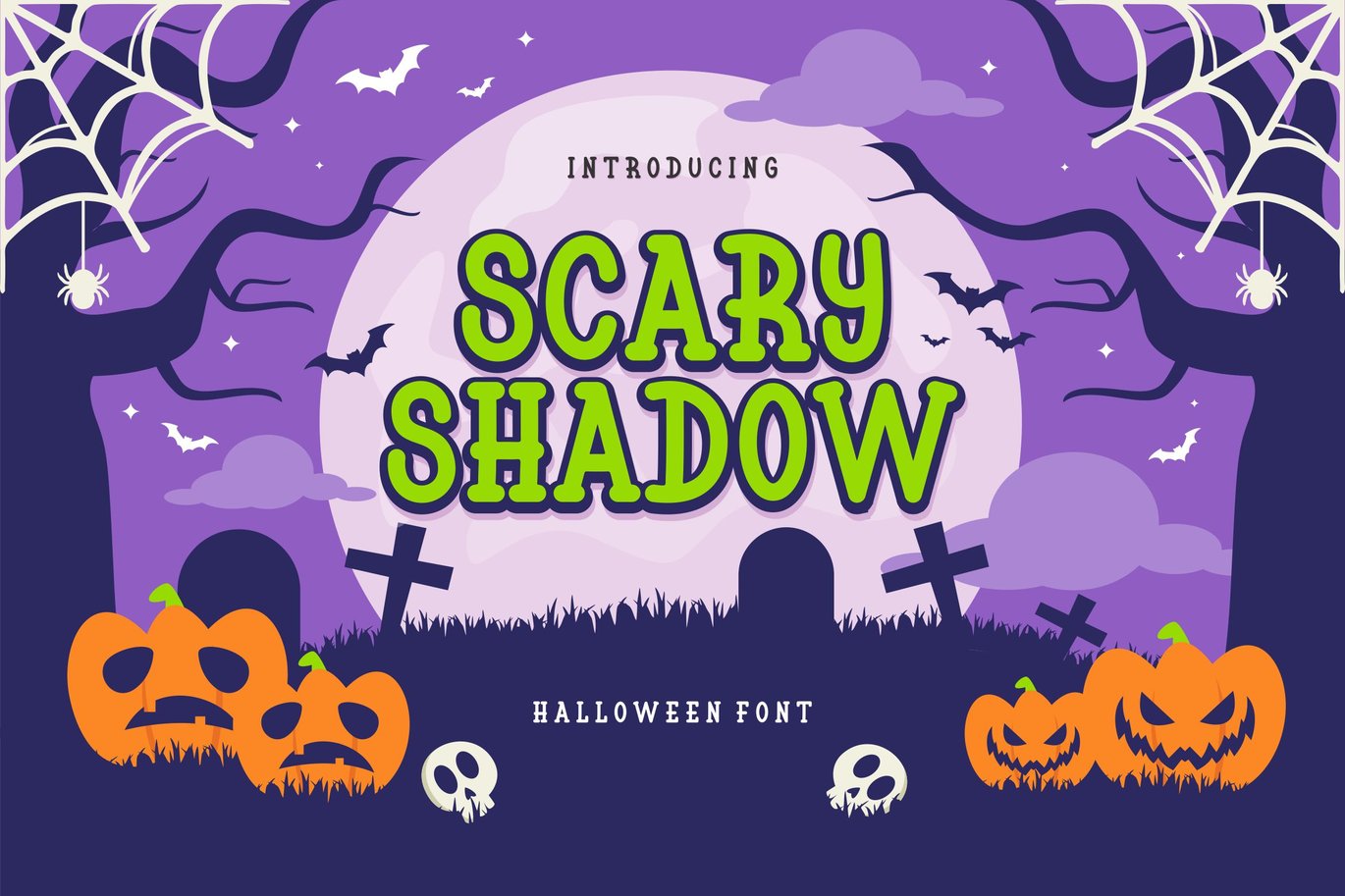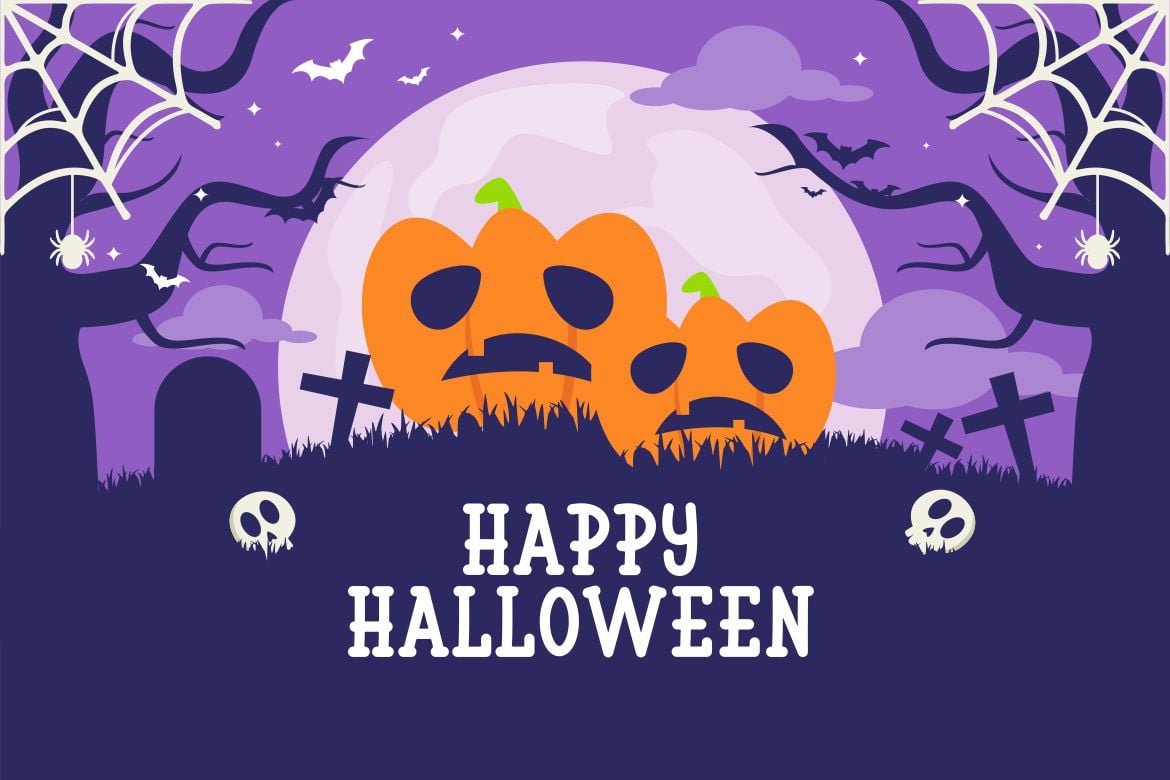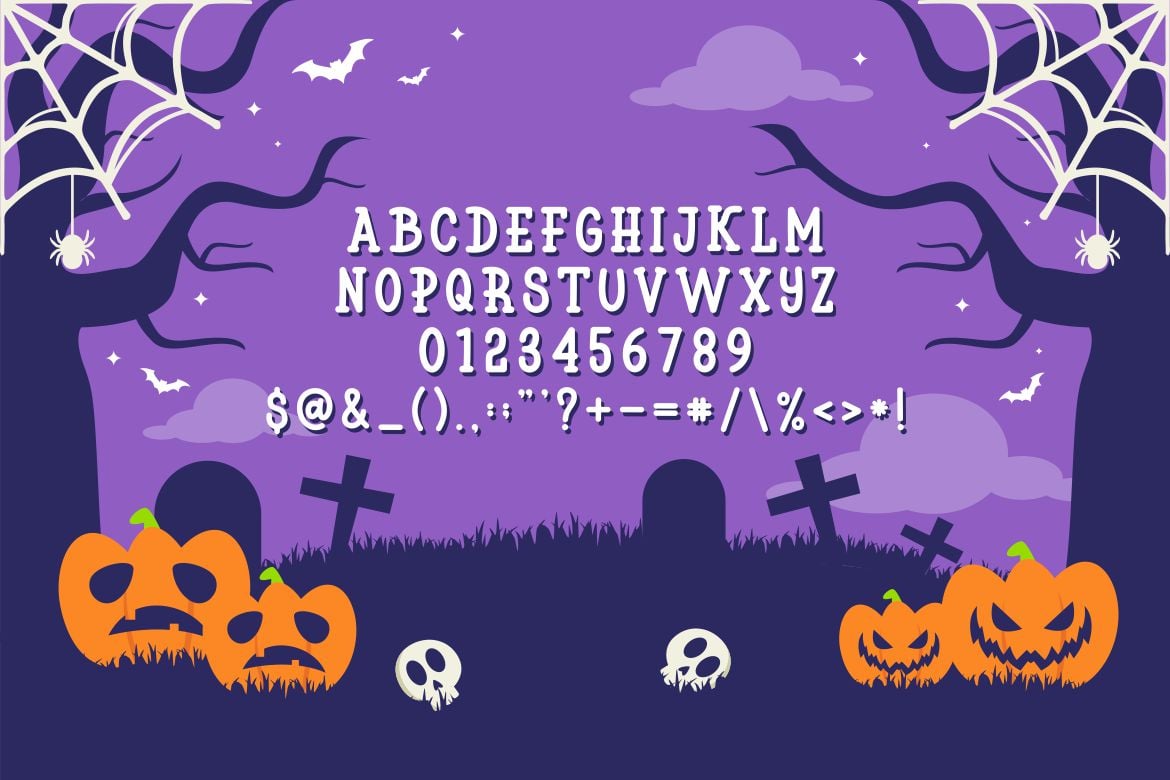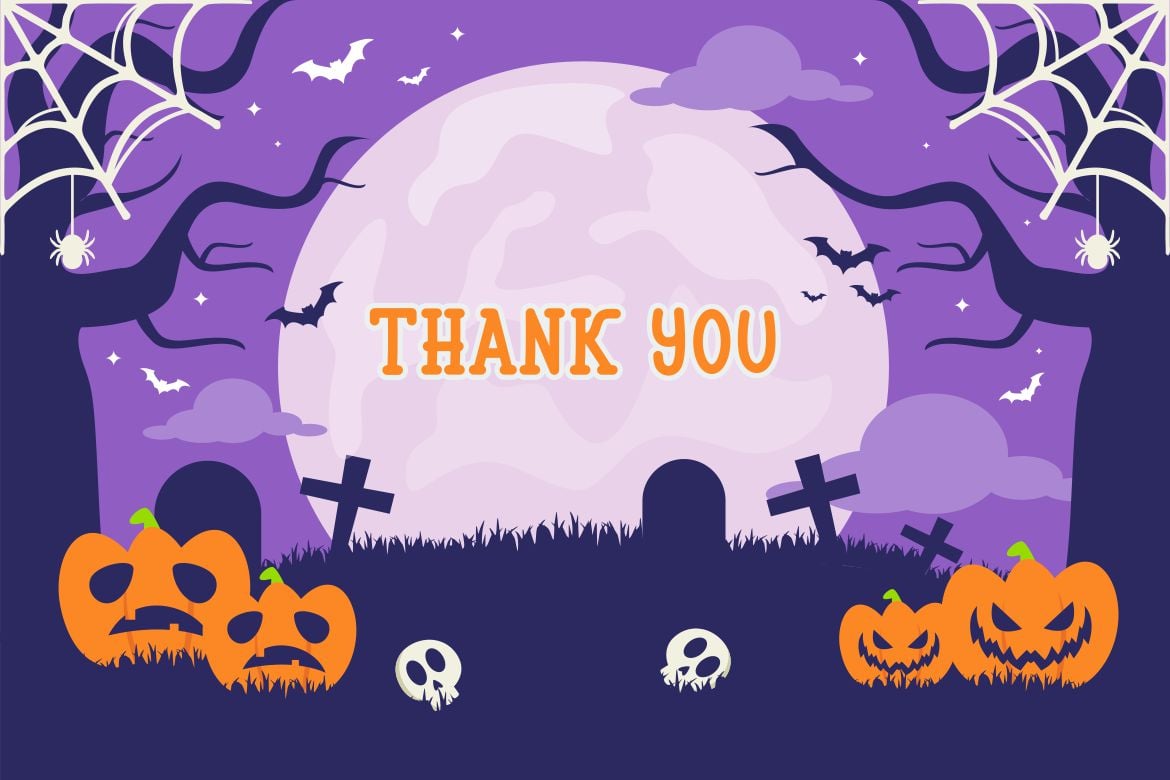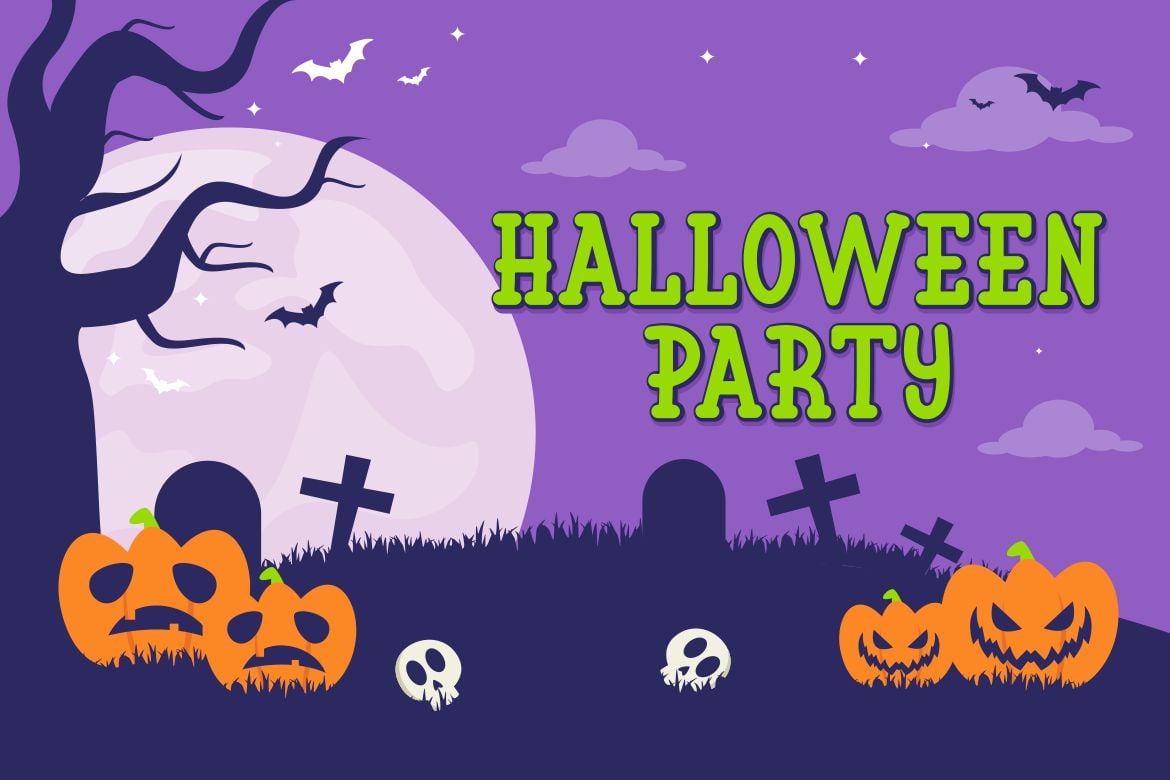
Scary Shadow – Halloween Font
Introducing our new product Scary Shadow – Halloween Font
Scary Shadow is a bold, modern display font with playful flair, ideal for attention-grabbing headlines, logos, and diverse design projects. Versatile and readable in both digital and print, Scary Shadow adds a dynamic touch to your message.